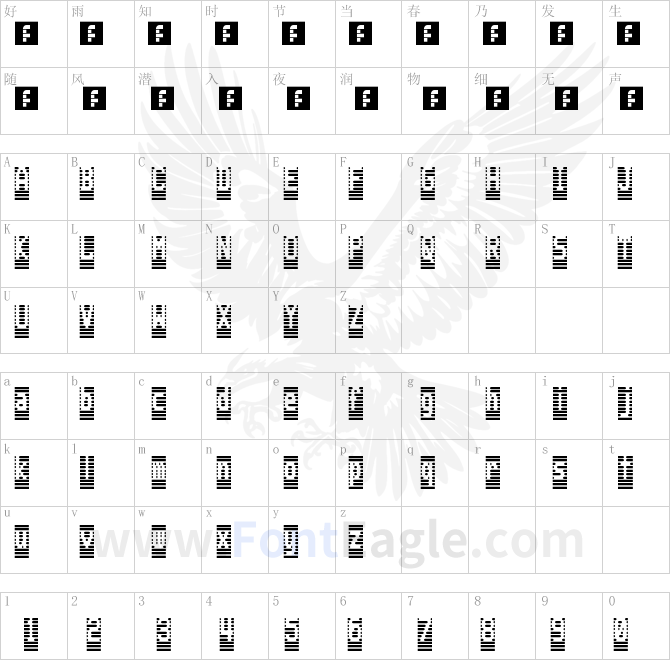
- Font name:WarText Inverse
- Font Subfamily ID:FontStruct WarText Inverse
- Font Full Name:WarText Inverse Regular
- Postscript:WarText-Inverse
“WarText Inverse” is based on “WarText” by “Coda Gardner” (http://fontstruct.com/fontstructors/kindredcoda) - Font Ext:.ttf